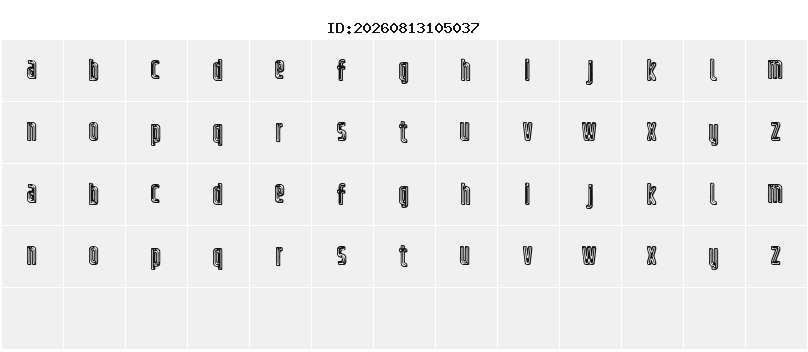
• Font Name: Refrigerator Chrome
• Font Style: Chrome
• Full Font Name: Refrigerator Chrome
• Designer: Frédéric Rich
• Manufacturer: Frédéric Rich
About Refrigerator Chrome.ttf
Refrigerator Chrome.ttf is a modern, elegant sans-serif font designed for ultimate readability and visual harmony. Perfect for branding, headlines, web design, and print materials.